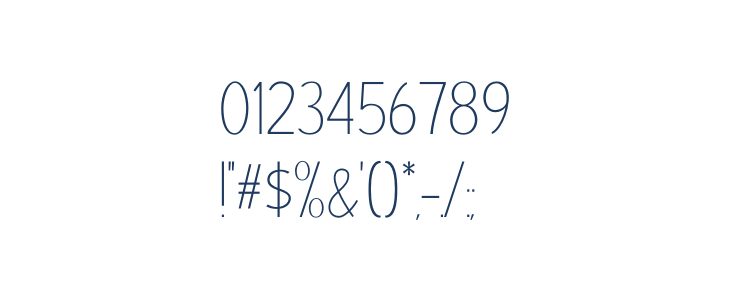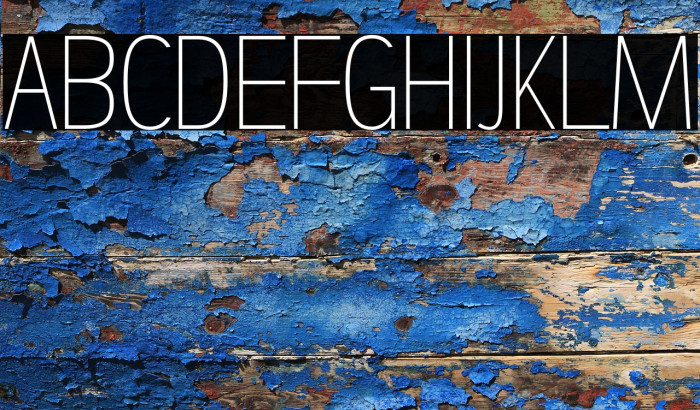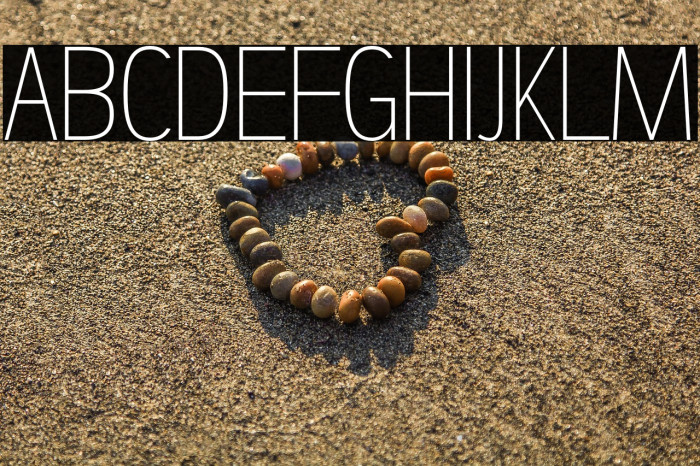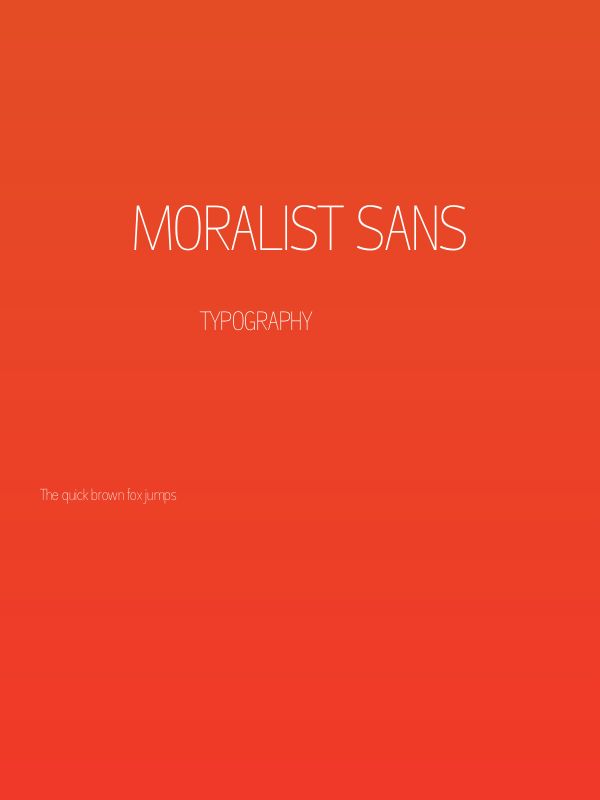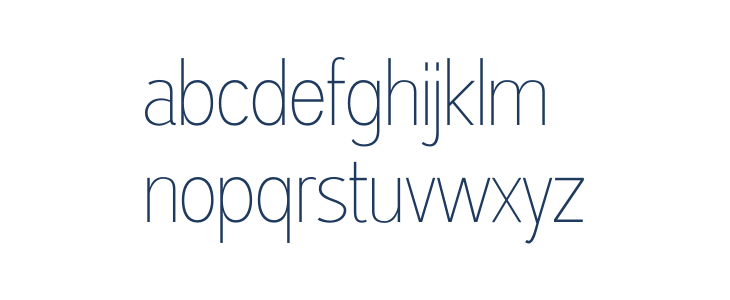
Moralist Sans Font
Moralist Sans Description
This font features a clean and modern sans-serif design with a geometric structure. The characters are uniformly proportioned, offering a sleek and contemporary appearance. The uppercase letters are tall and elegant, while the lowercase letters maintain a consistent height, contributing to a balanced and harmonious look. The numerals are clear and straightforward, ensuring readability. Special characters are designed with simplicity in mind, enhancing the overall minimalist aesthetic. This font is versatile and suitable for various design applications.
| Proposed Projects | Ideal for branding, web design, editorial layouts, and corporate materials. |